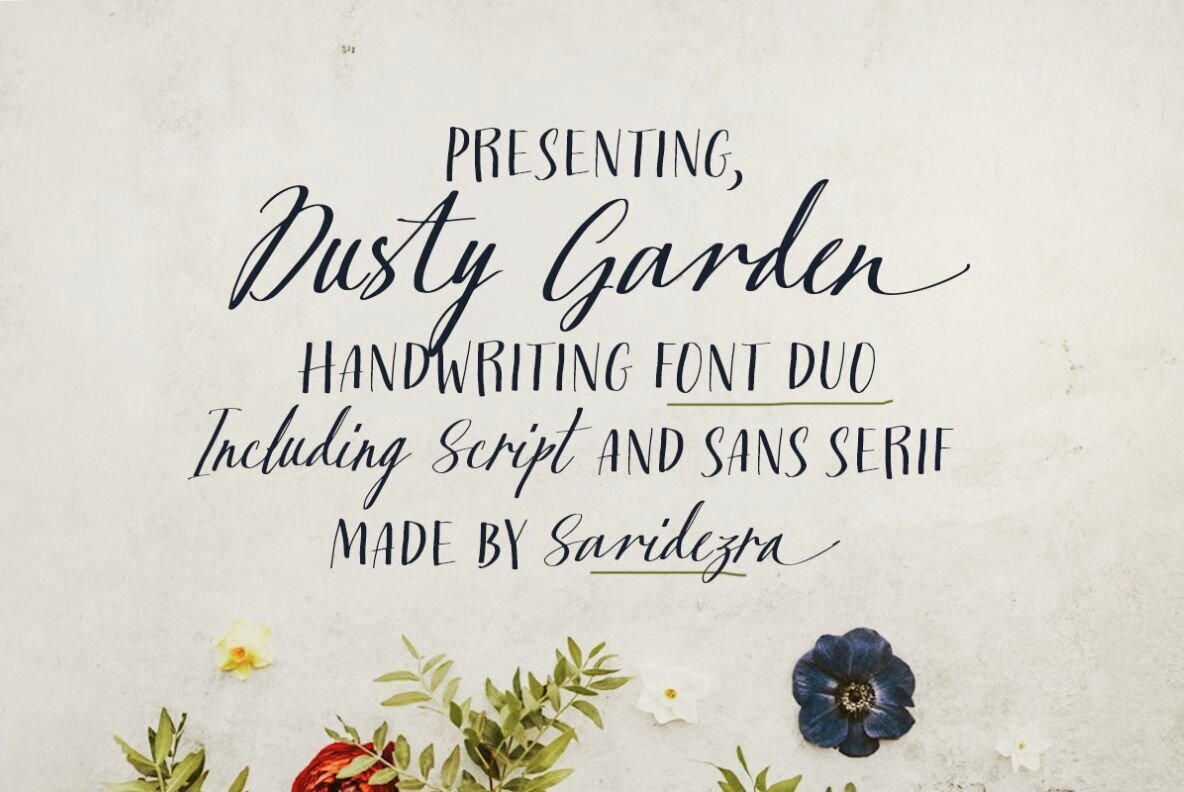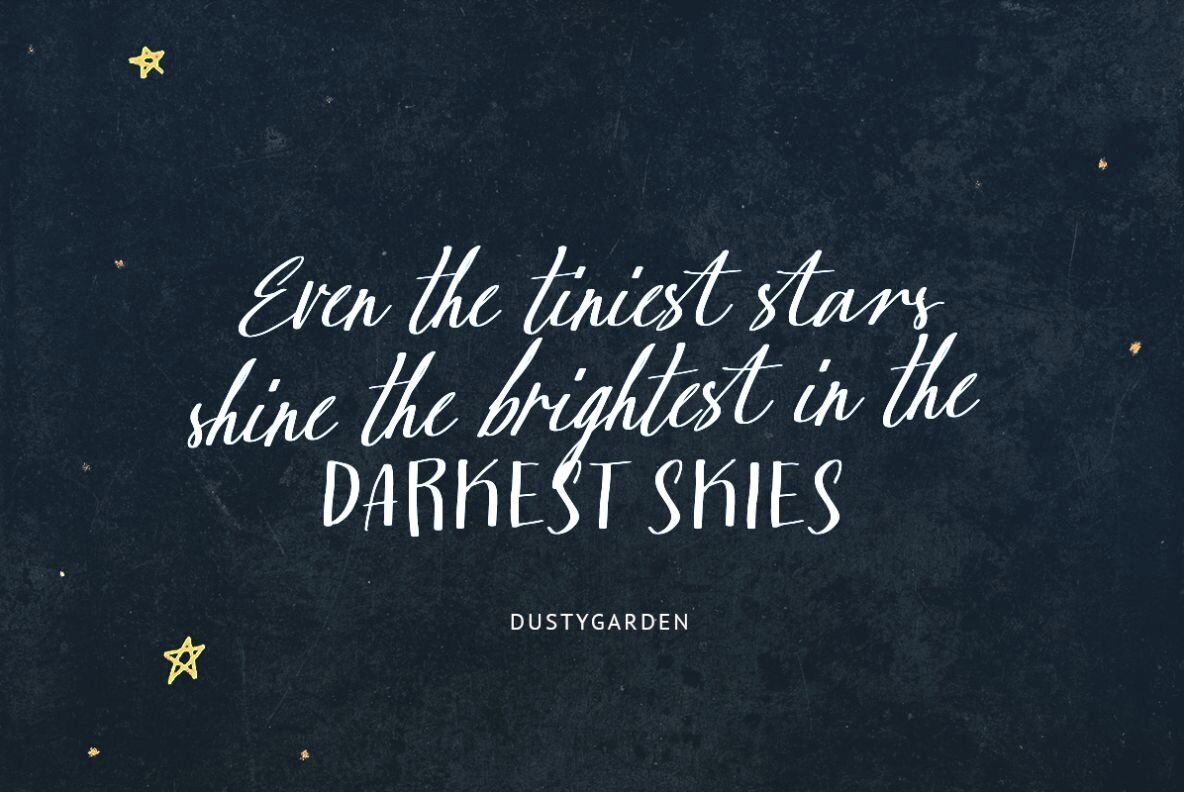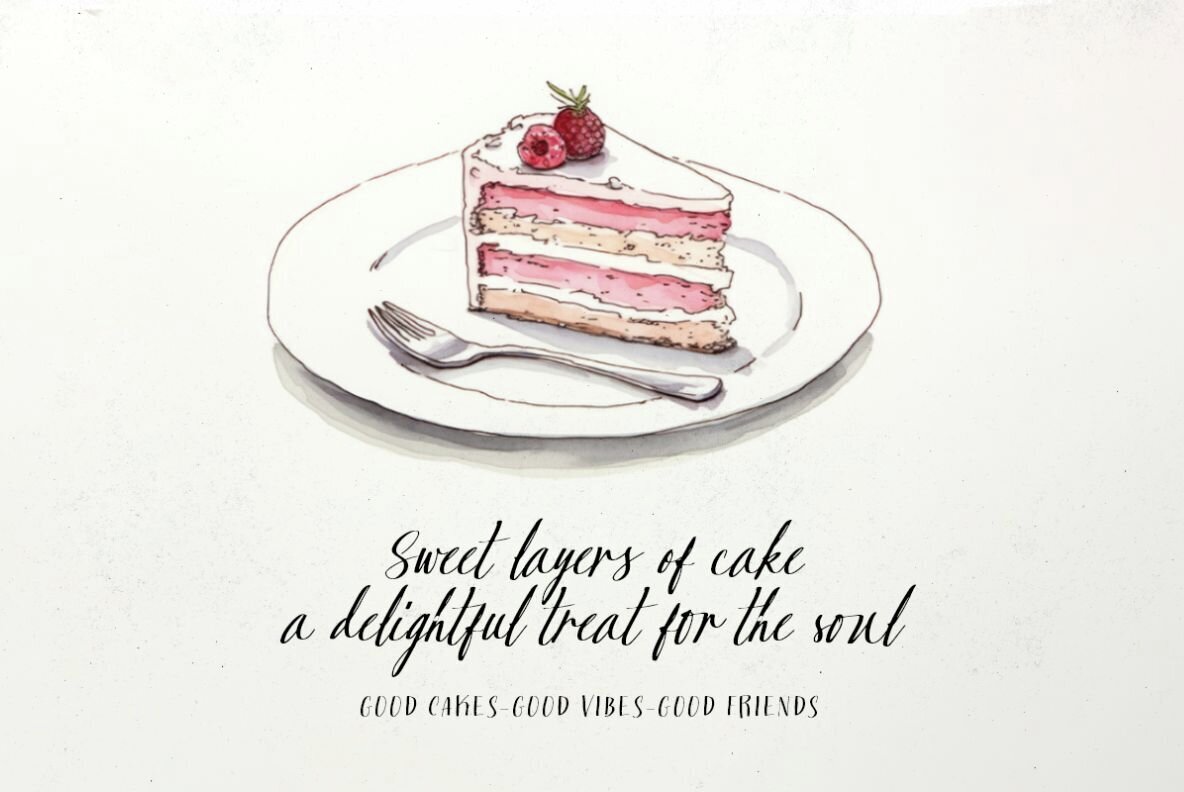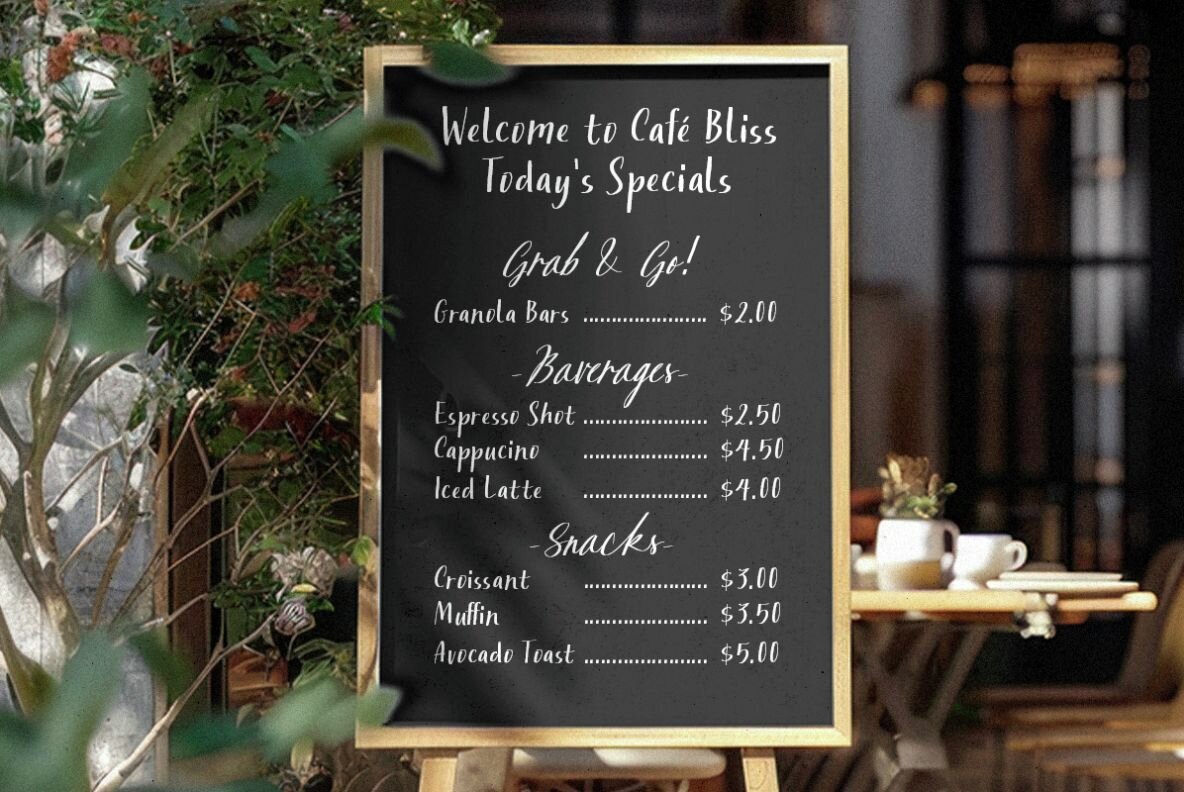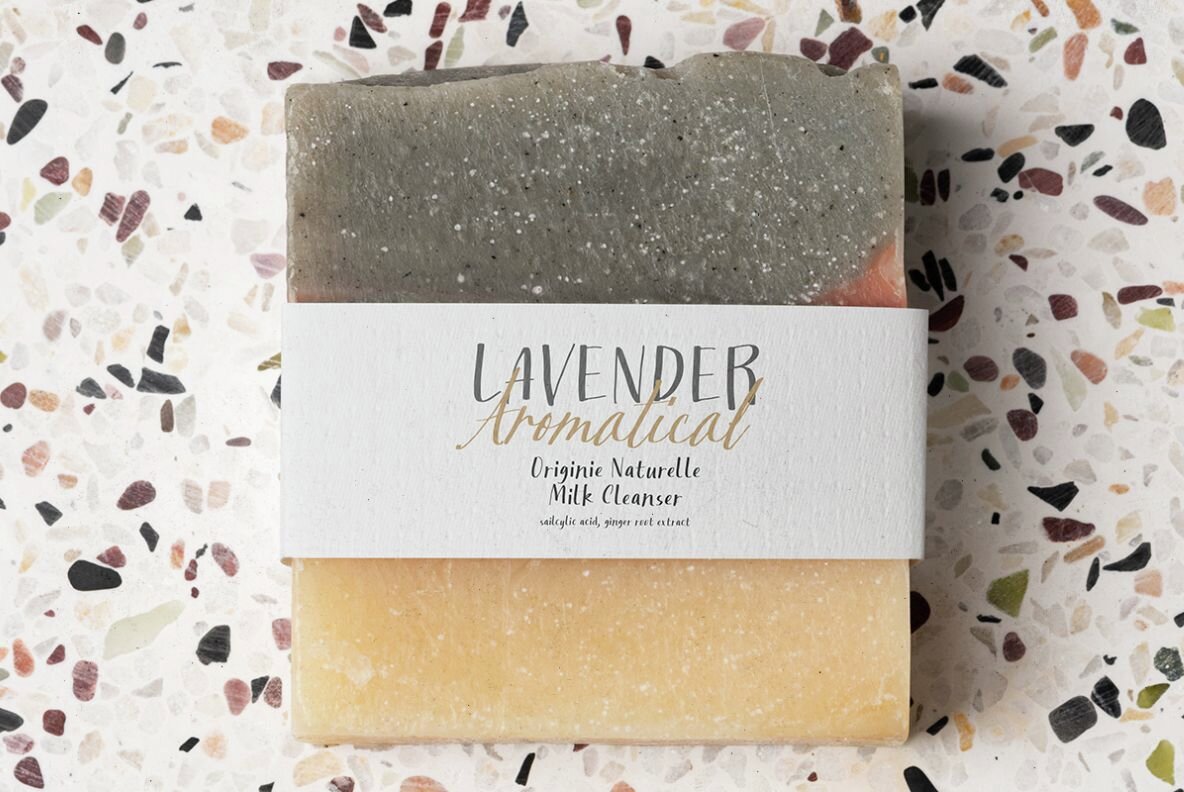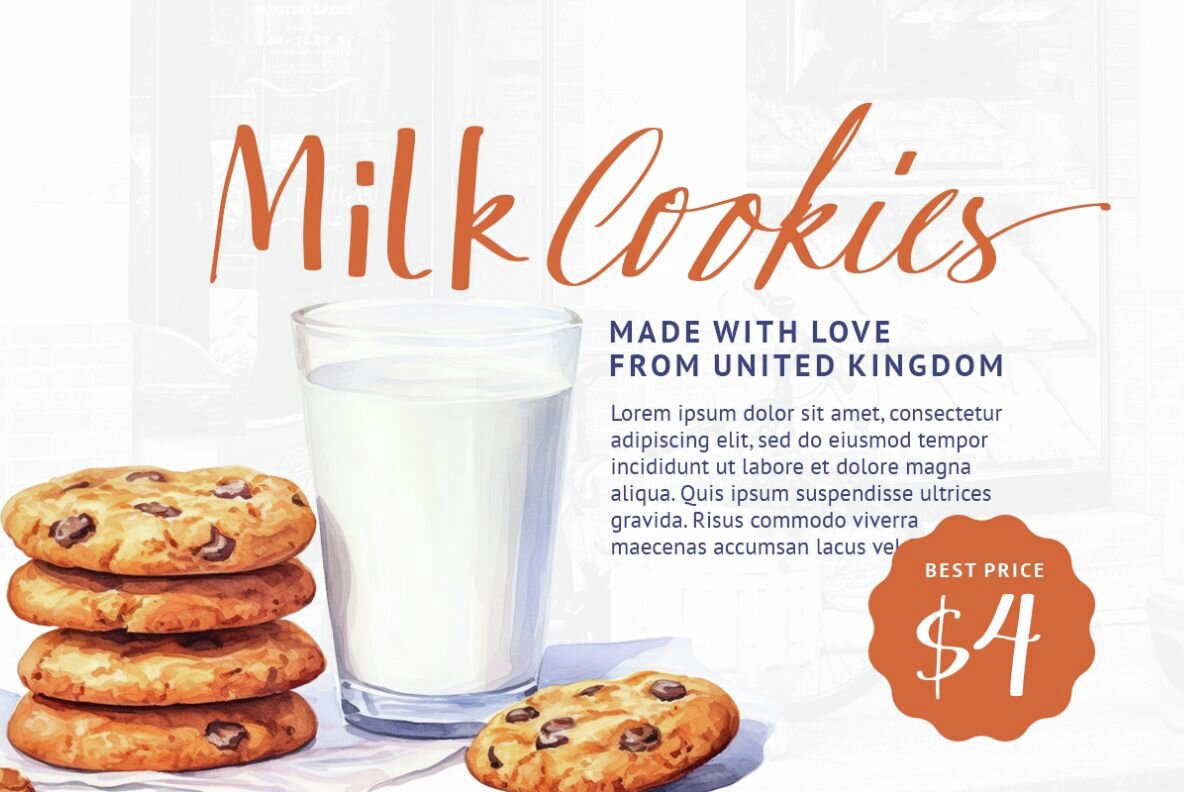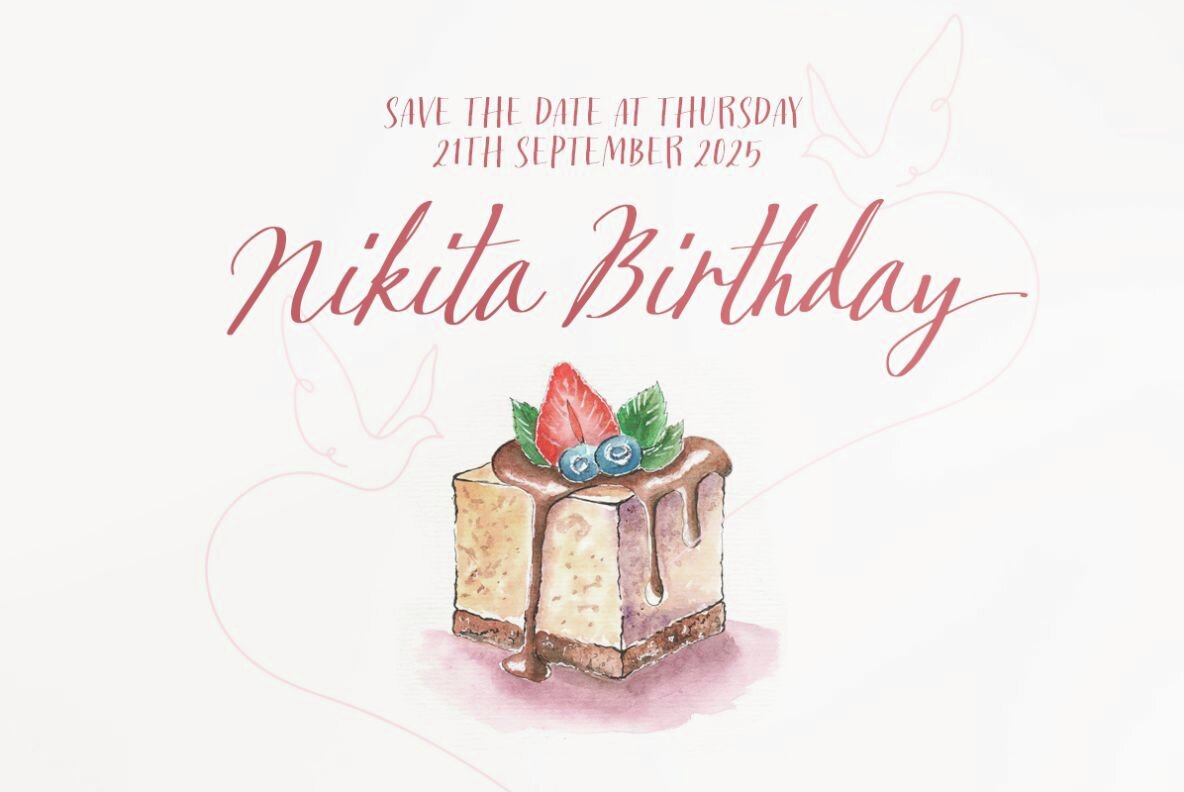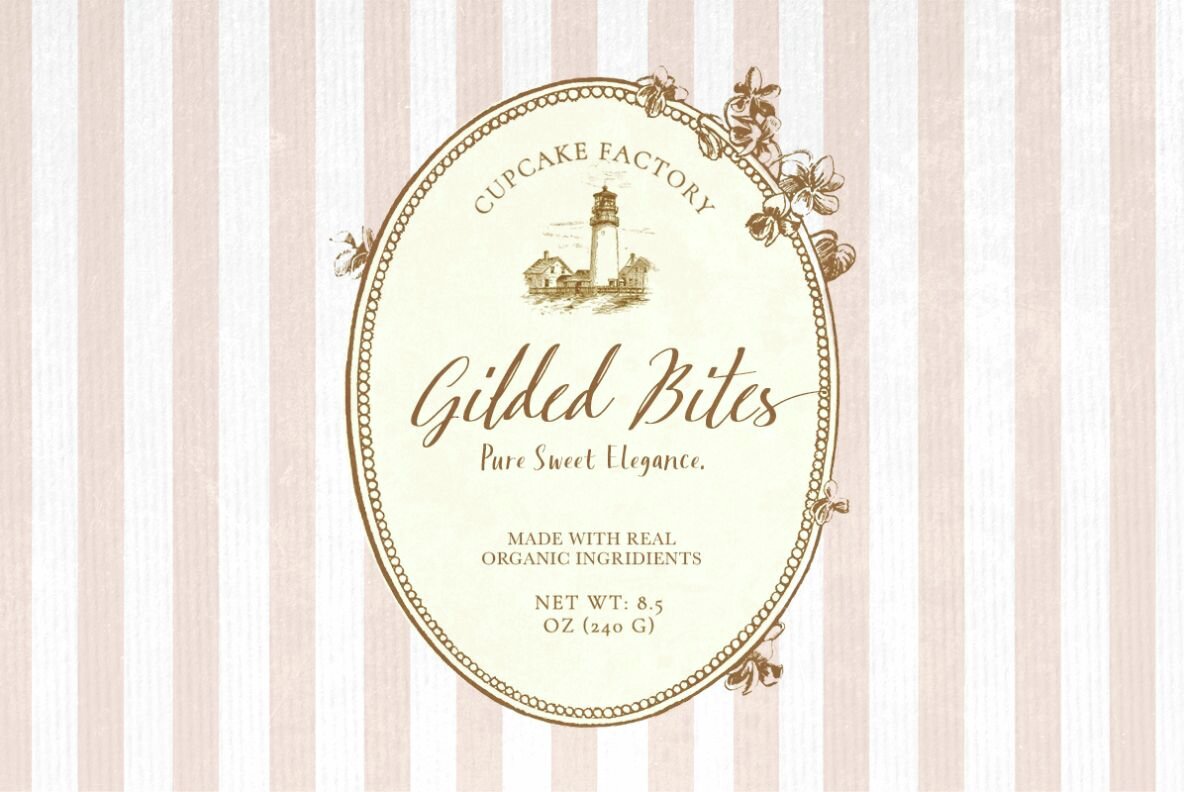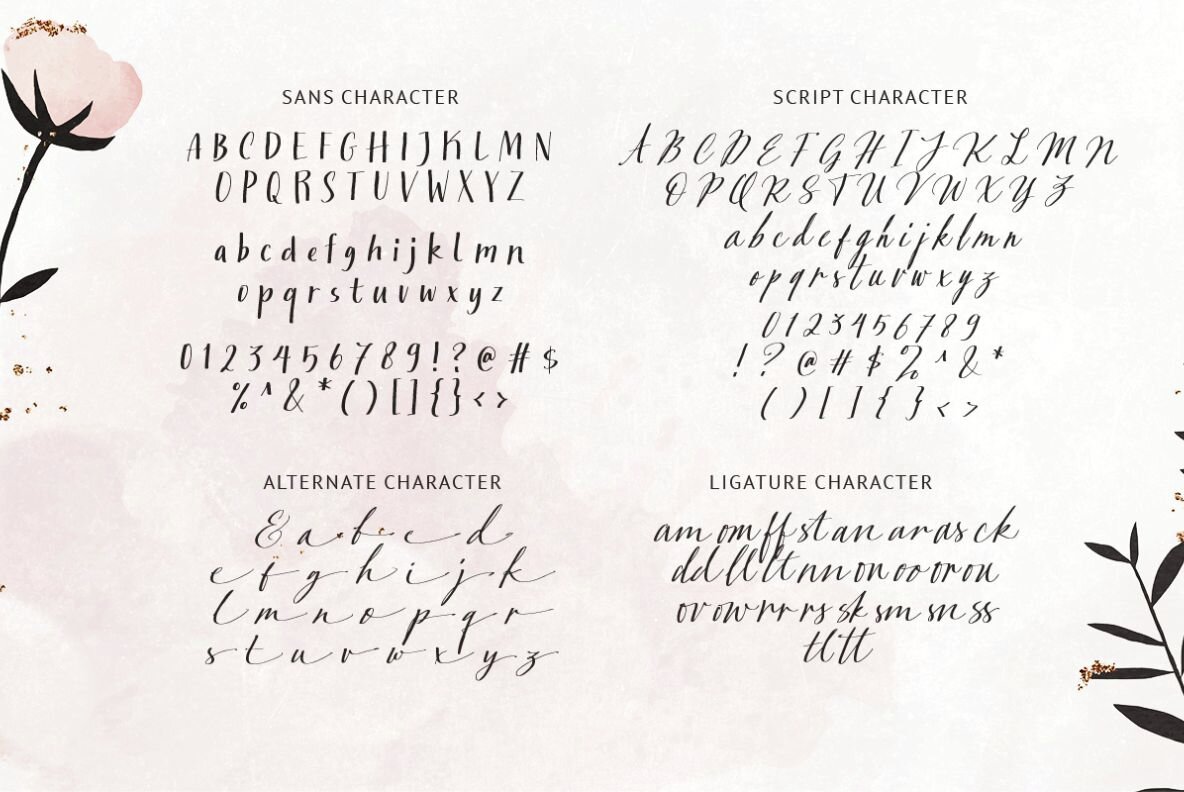
Dusty Garden Font
Dusty Garden Sans
Dusty Garden Script
Welcome the Dusty Garden font family, where elegance meets versatility. This collection includes both complementary sans and script styles. The script style features beautiful ligatures and alternate endings, while the sans remains simple and naturally appealing. Perfect for adding a handmade, handwritten touch to your projects. Notably, Dusty Garden supports multiple languages, making it a versatile choice for designers worldwide seeking a blend of style and function.Dusty Garden Font Family
Perfect for Various Uses